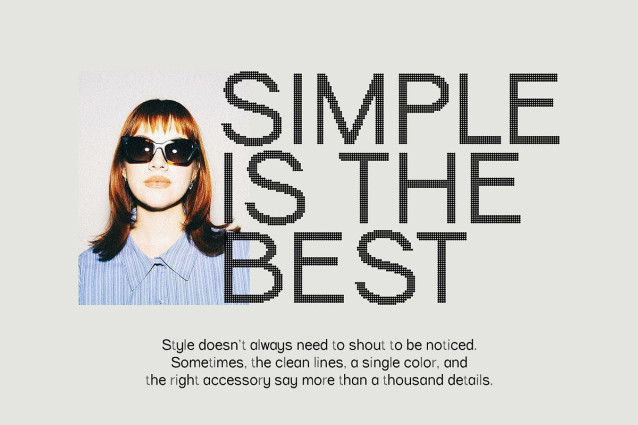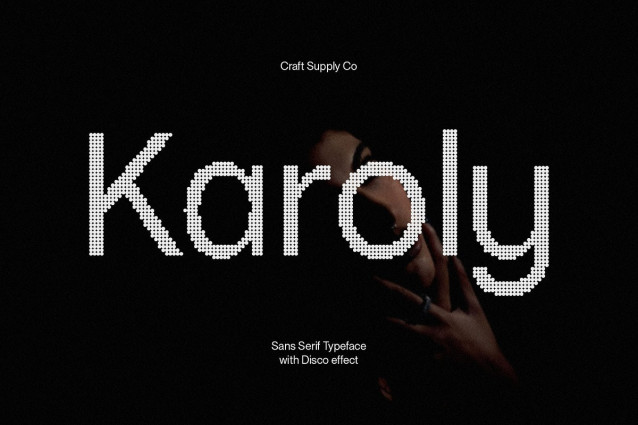
Karoly Disco Font
Karoly Disco Font: Geometric Clarity with a Glamorous Sparkle Sleek Geometric Sans Serif with Disco Flair This is a sleek and modern geometric sans serif font designed to deliver clarity and confidence. Its clean letterforms embody professional precision, while subtle disco-inspired sparkle effects give it a glamorous edge that elevates any design. This fusion of structure and shine makes both practical and expressive. Professional Precision for Modern Design With balanced proportions and sharp geometric construction, communicates clarity and authority. Its polished design ensures excellent legibility, making it a dependable choice for contemporary branding, digital layouts, and editorial projects that value sophistication. Disco Sparkle for Expressive Impact Adding more than just function, the shimmering disco detail introduces vibrancy and personality. This glamorous effect transforms plain text into a visual centerpiece, infusing projects with energy and modern elegance while keeping them stylishly unique. Versatile for Logos, Branding, and Editorials From eye-catching logos to high-end branding and chic editorial layouts, adapts with ease. It balances professional precision with artistic flair, ensuring your designs stand out with both structure and sparkle. Whether minimal or bold, delivers impact every time. Download Type Speciment: — What you get : – Karoly Disco Regular – Karoly Disco Italic Features : – Uppercase and lowercase characters – Numerals and Punctuation (OpenType Standard) – Accents (Supports Multilingual Characters) – PUA Encoding — You can use this typeface without needing any specialized software. — If you have any inquiries or need assistance, please feel free to contact us. We appreciate your support in enhancing your creative projects! Best regards, Craft Supply Co.